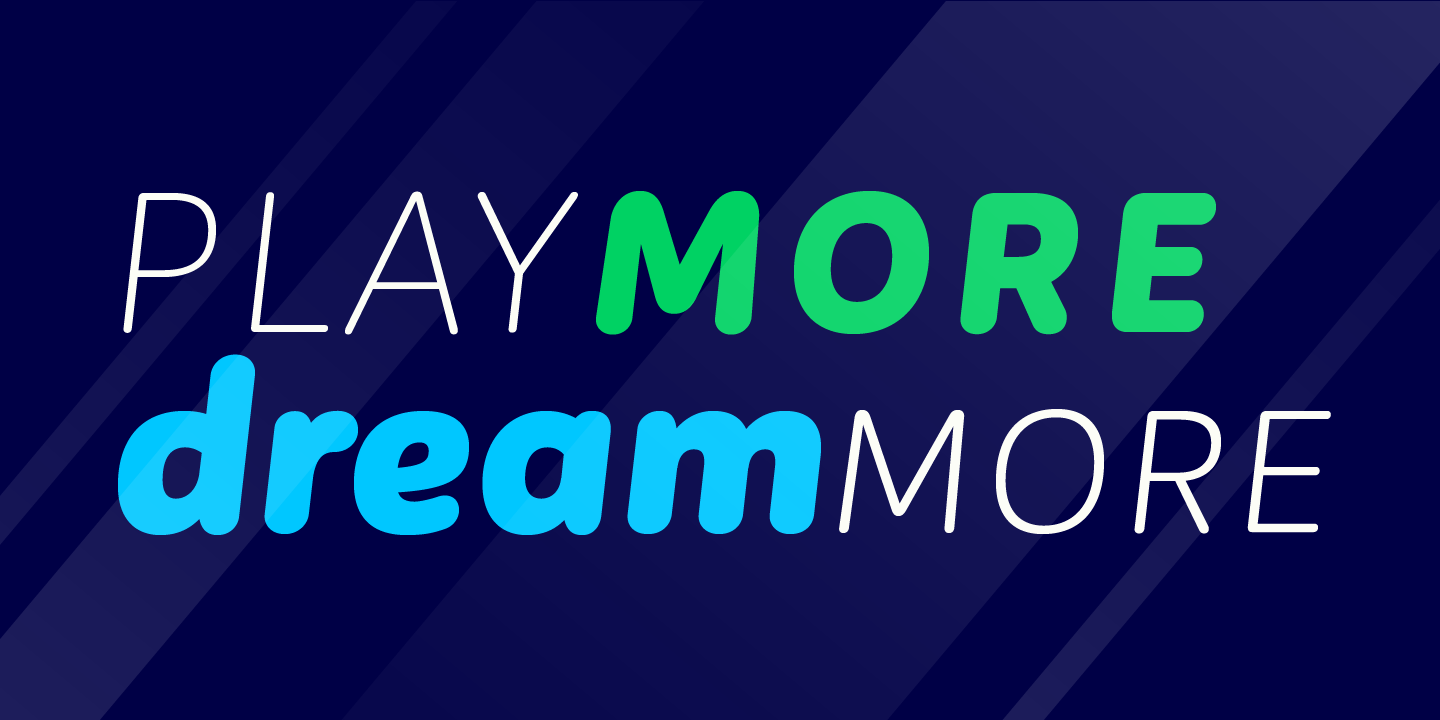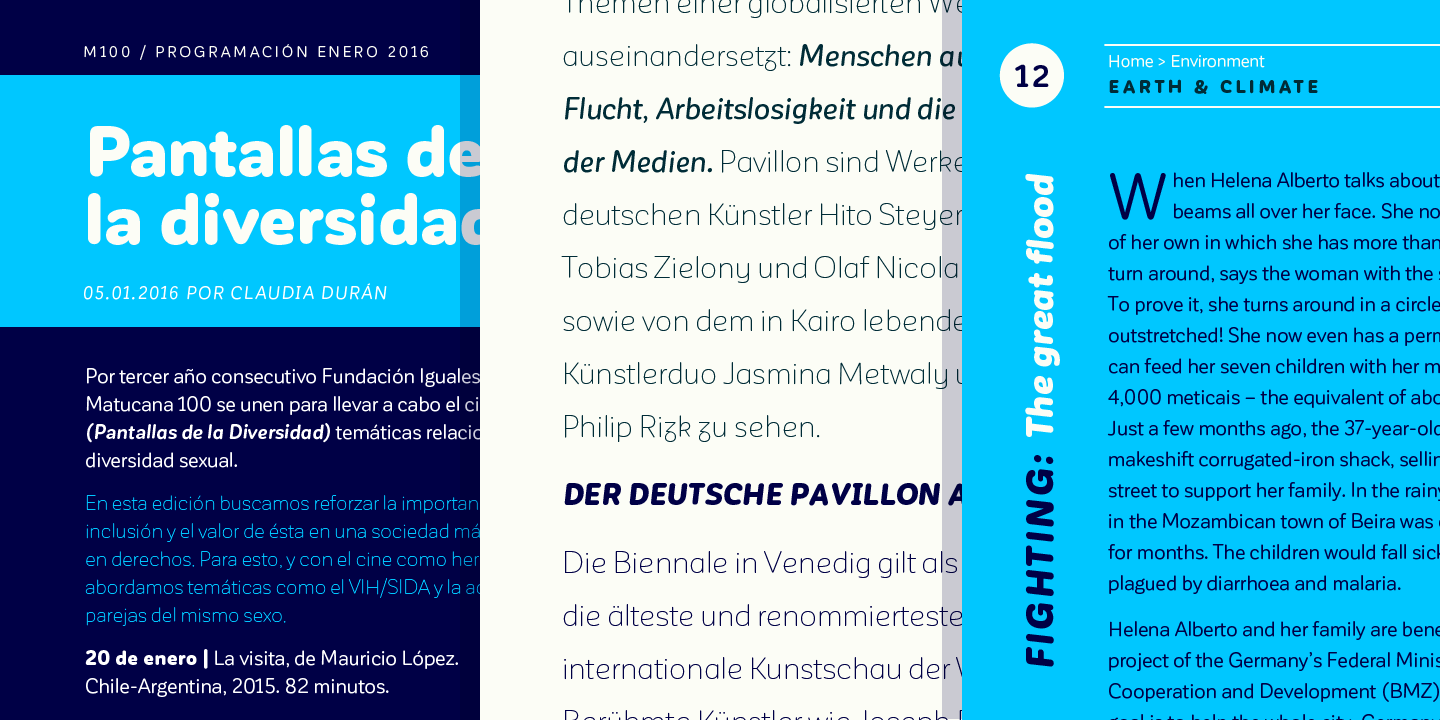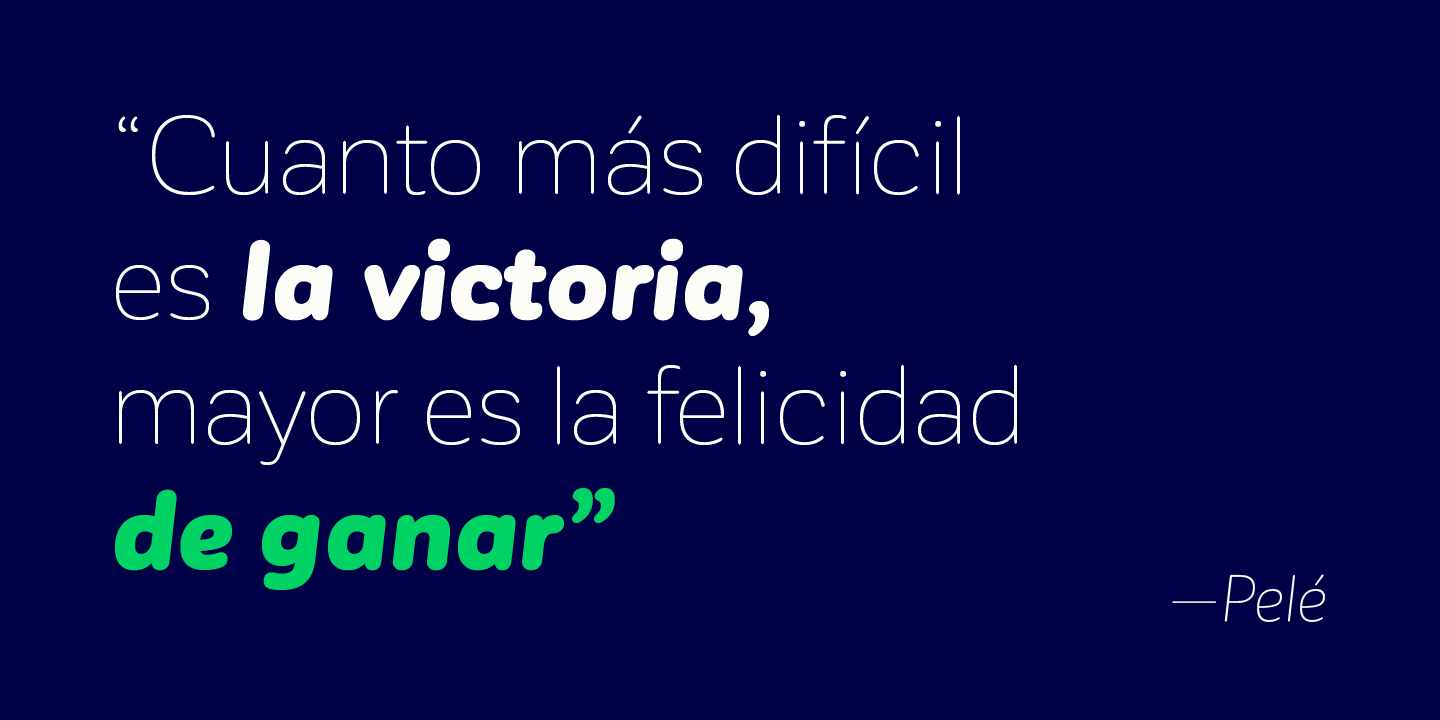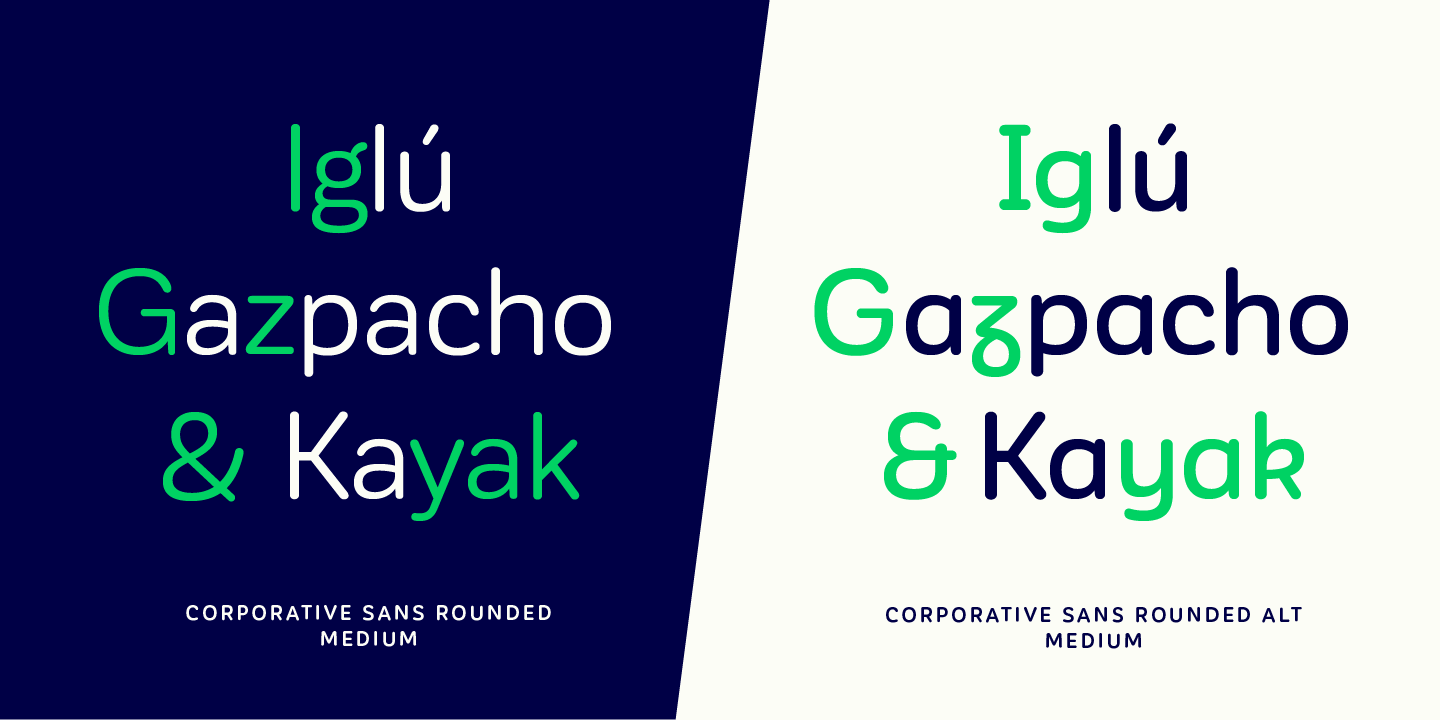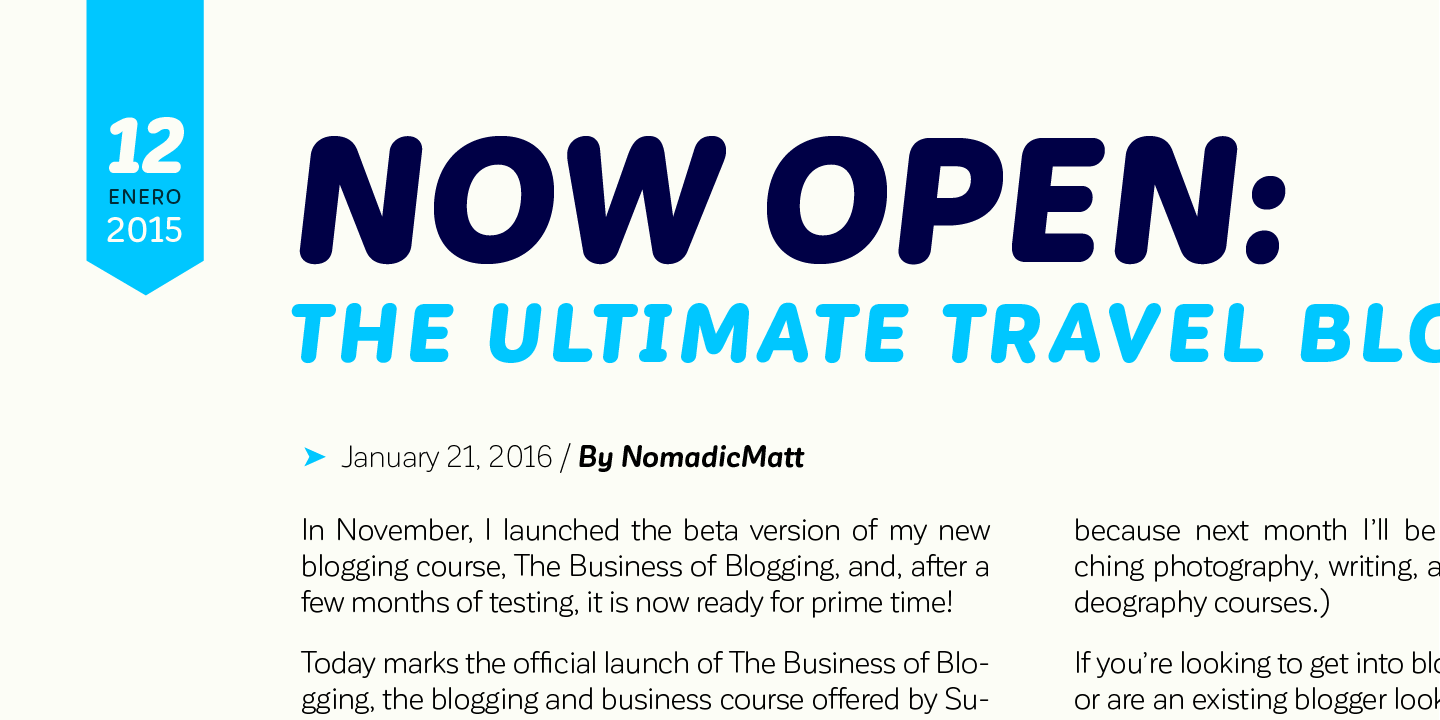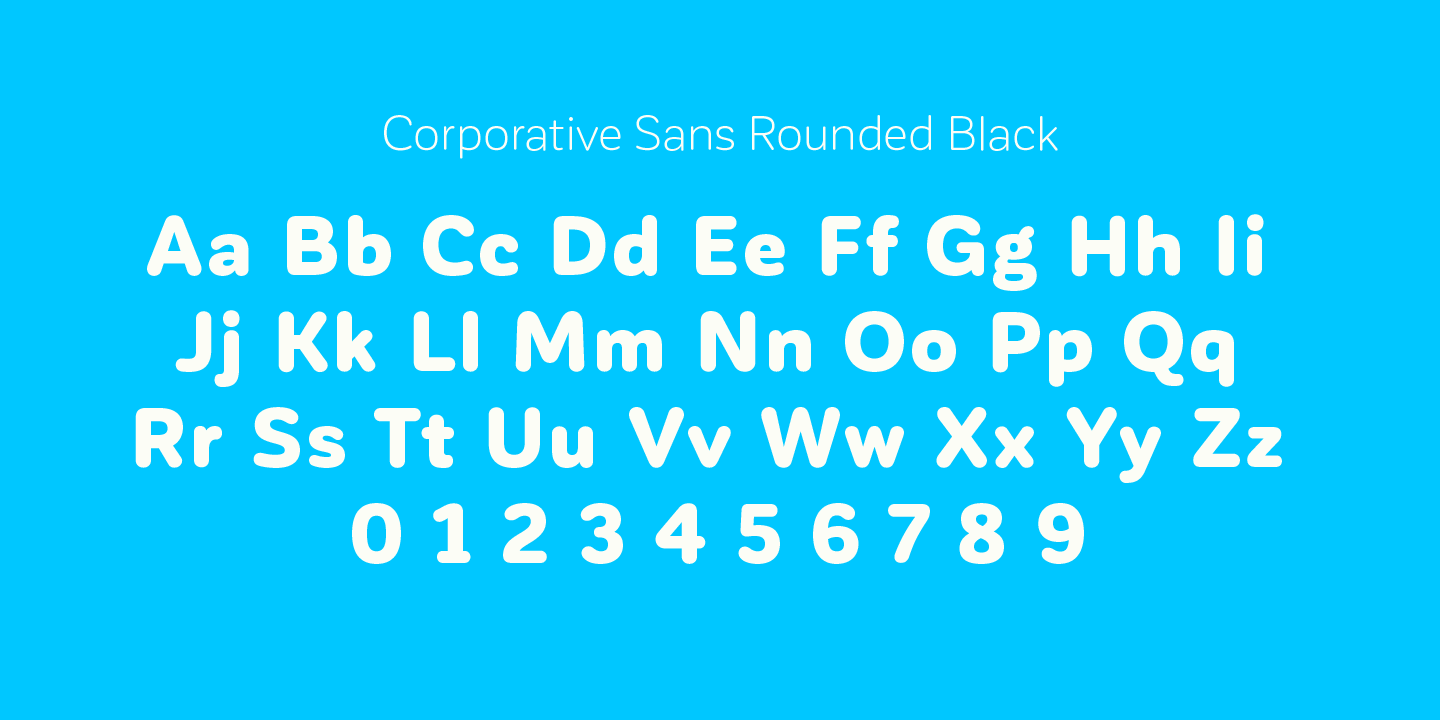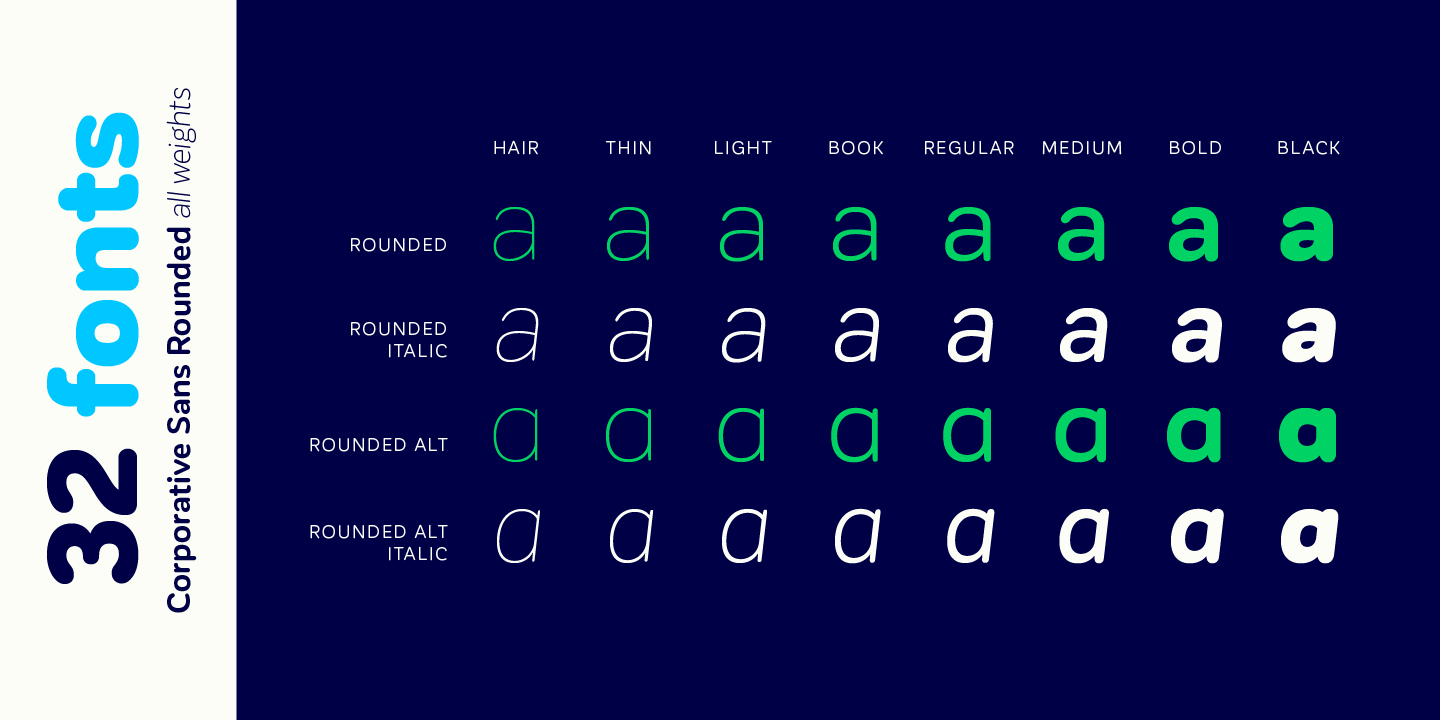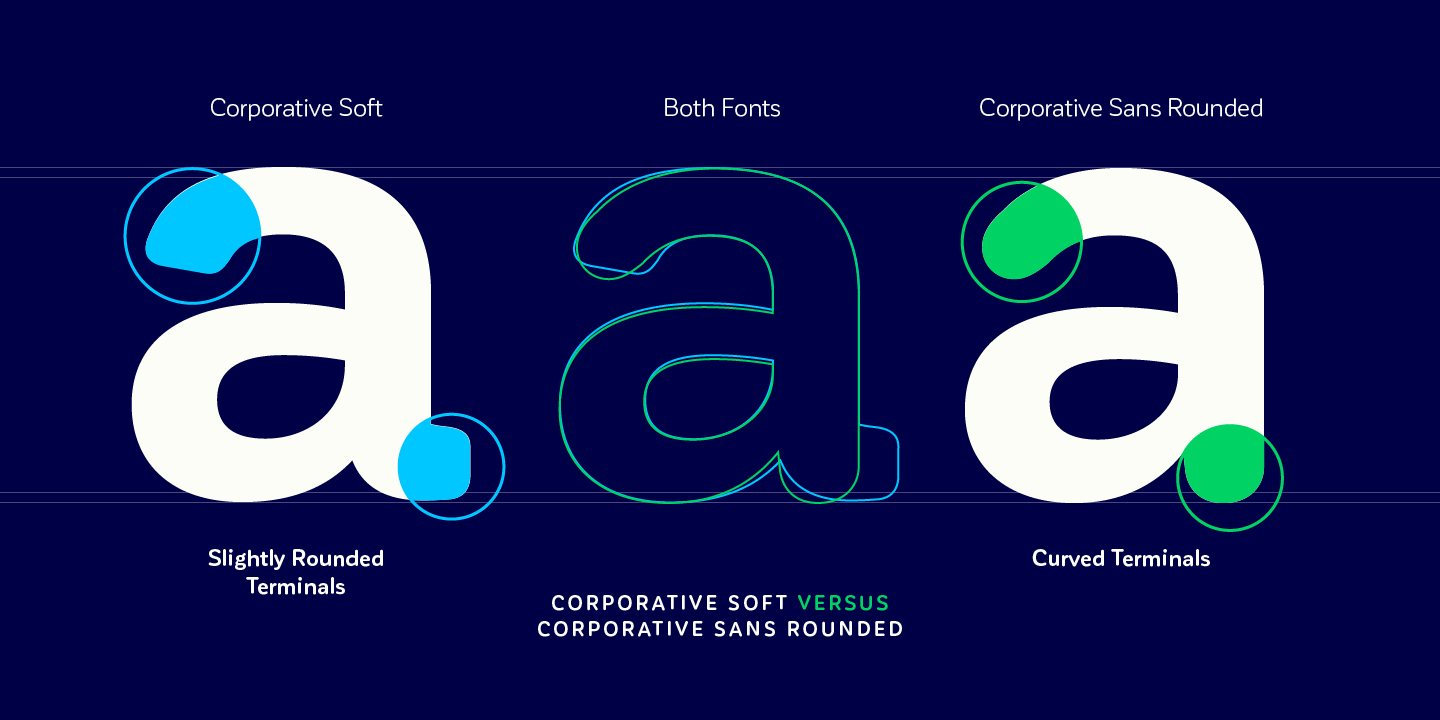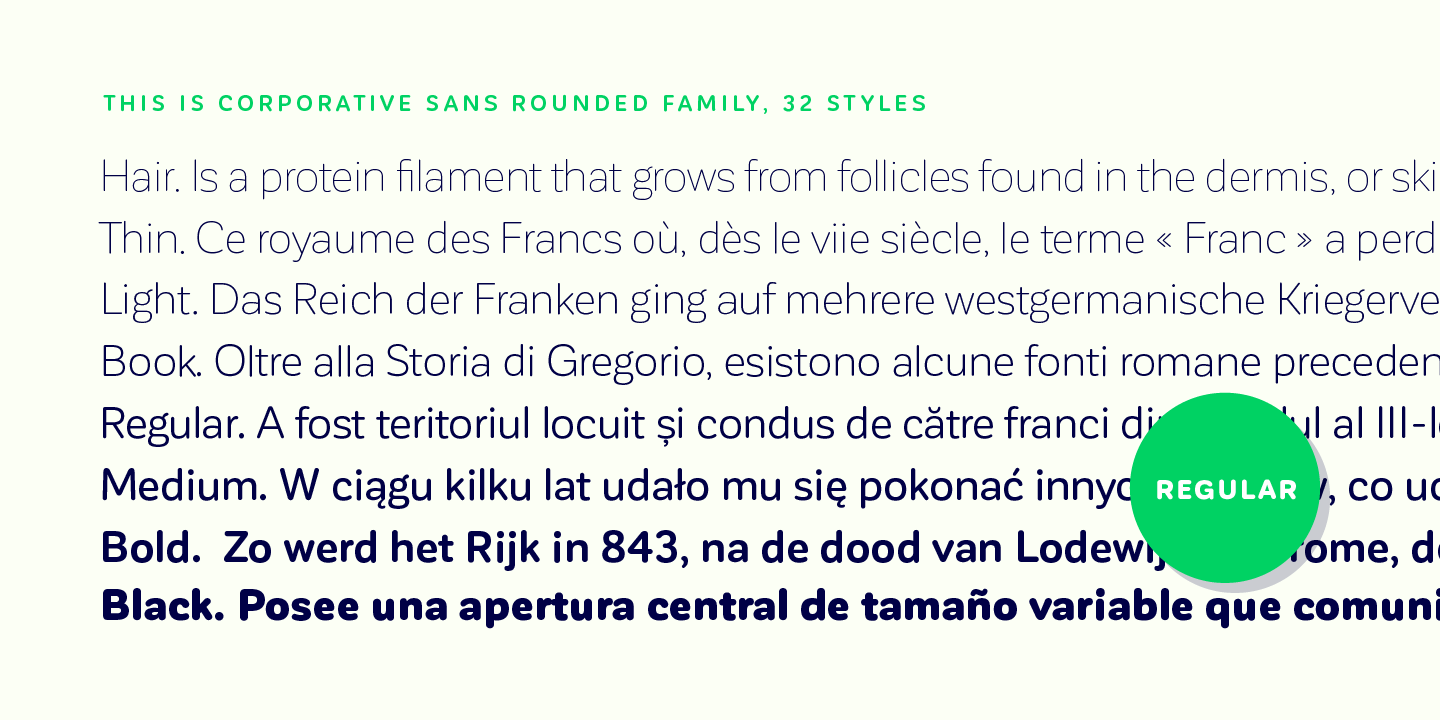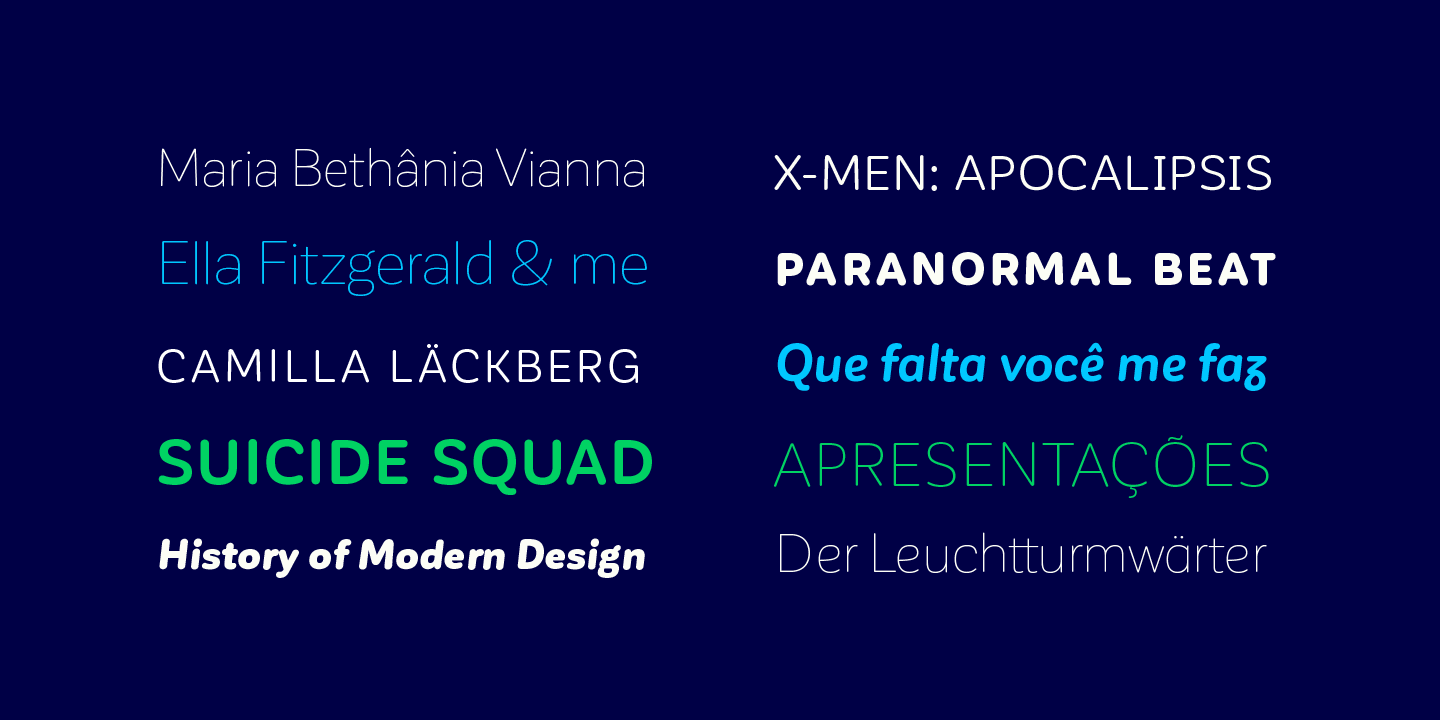
Corporative Sans Rounded Complete Family (32 fonts)
Corporative Sans Rounded is the rounded version of Corporative Sans. Its curved terminals provide it with a marked personality and distinctive traits, but turn it into a friendly face at the same time. The font works well at both display and small sizes. Corporative Sans Rounded is the perfect choice for logotypes, posters, signs, branding, packaging and so on!
Corporative Sans Rounded comes with Latinotype’s standard set of 350 characters, making it possible to use the font in 128 different languages. Corporative Sans Rounded provides users with a wide range of characters, weights and widths for every project. By combining different variants, designers can achieve the best results.
The family consists of 32 fonts: a basic family that includes 8 weights plus italics and an alternative family of 8 weights with matching italics as well.
Corporative Sans Rounded was created by LatinotypeTeam and developed by Elizabeth Hernández and Rodrigo Fuenzalida, under the supervision of Luciano Vergara and Daniel Hernández.About this font family Corporative Sans Rounded is the rounded version of Corporative Sans. Its curved terminals provide it with a marked personality and distinctive traits, but turn it into a friendly face at the same time. The font works well at both display and small sizes. Corporative Sans Rounded is the perfect choice for logotypes, posters, signs, branding, packaging and so on!